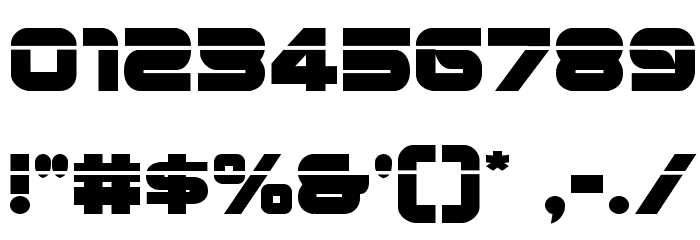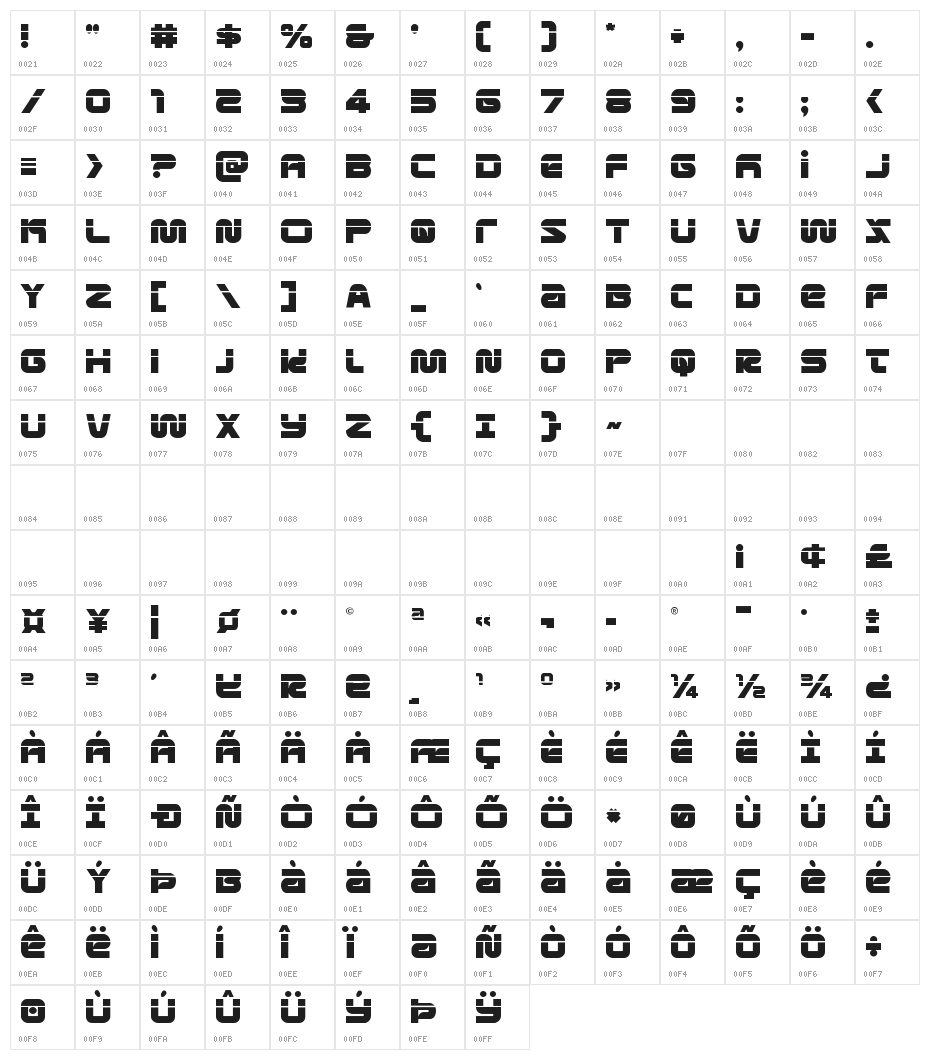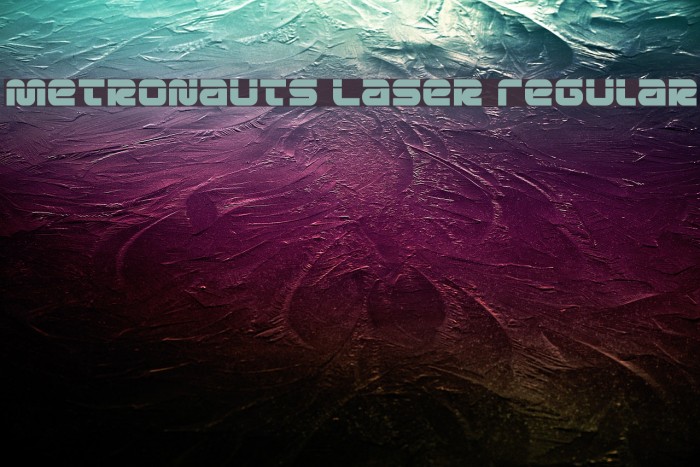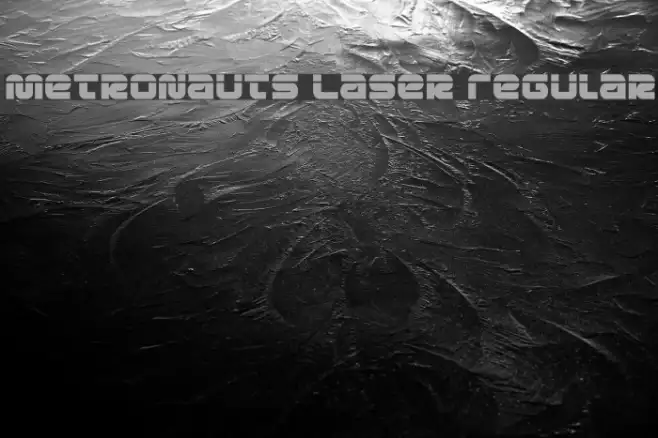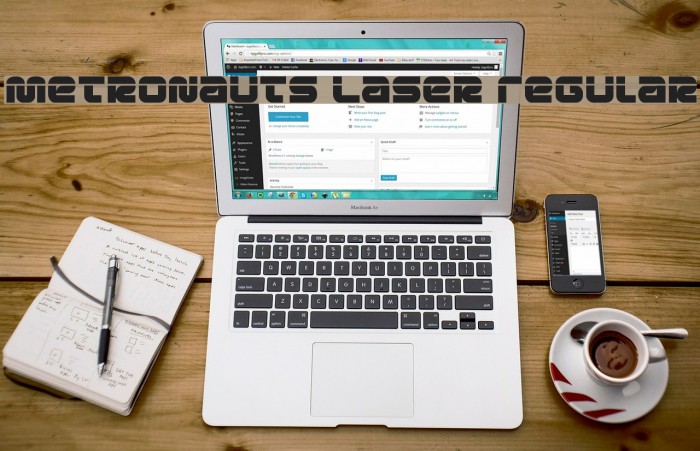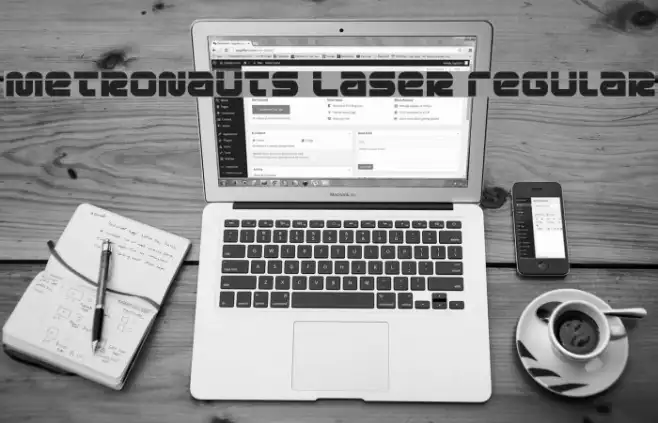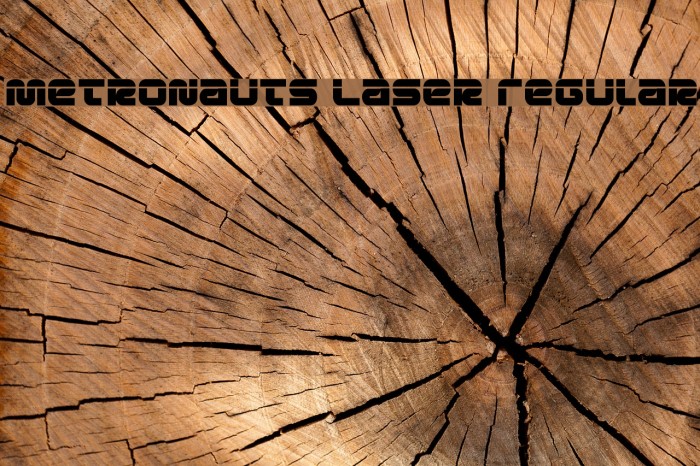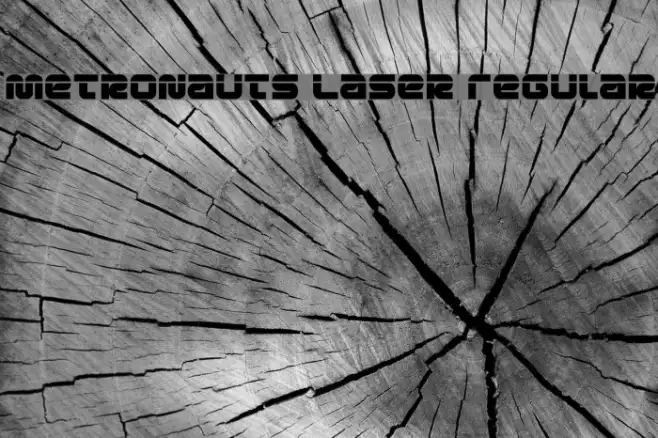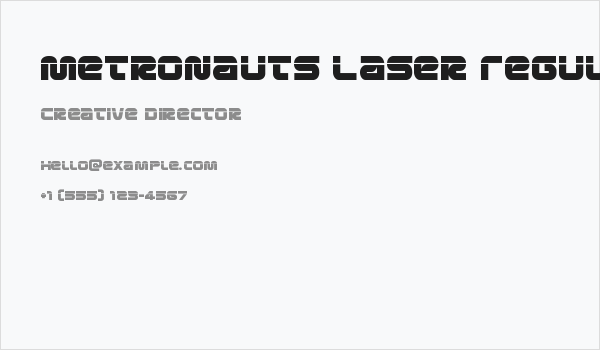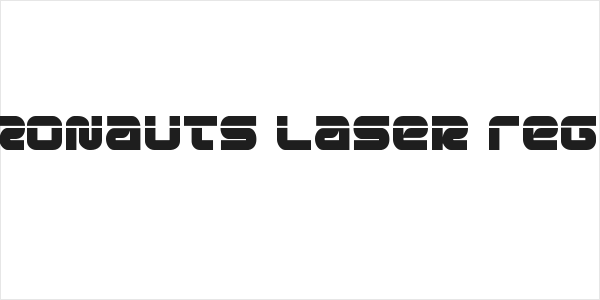
Metronauts Laser Regular Font
Metronauts Laser Regular Description
This font features a bold, futuristic design with a geometric structure. The characters are constructed with thick, uniform strokes and rounded edges, giving it a modern and sleek appearance. The uppercase and lowercase letters maintain a consistent style, with a unique blend of curves and straight lines that create a dynamic visual impact. The numerals and special characters follow the same design principles, ensuring a cohesive look across all glyphs. This font's distinct style makes it ideal for projects that require a contemporary and eye-catching typeface.
| Proposed Projects | Ideal for sci-fi themed designs, technology branding, video game titles, and modern advertising. |